30 Great Free Trendy Fonts for 2025
Choosing the right font can dramatically elevate the visual impact of your project. As we move into 2025, we’re thrilled to present a fresh selection of 30 remarkable free fonts that bring style and personality to your designs.
1. Mansfield Font
Mansfield Font is a fresh and versatile geometric sans-serif font family inspired by the iconic typefaces of the 20th century, such as Futura and Avant Garde. With its geometric letterforms, sharp edges, and minimal stroke contrast, Mansfield embodies the clean and modern aesthetics of neo-grotesque fonts. Its tall x-height and precise design make it a perfect choice for various design projects, from branding to editorial work.
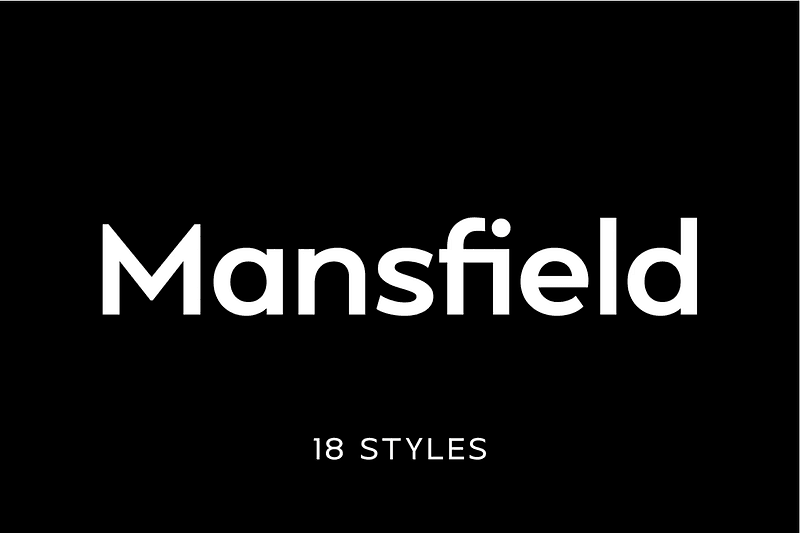
2. Neue Power
Neue Power is a contemporary sans serif display font family in 6 weights plus 12-degree of obliques. It supports 75+ Languages (Latin Based) followed by the Grotesk typefaces, perfect for various design needs,
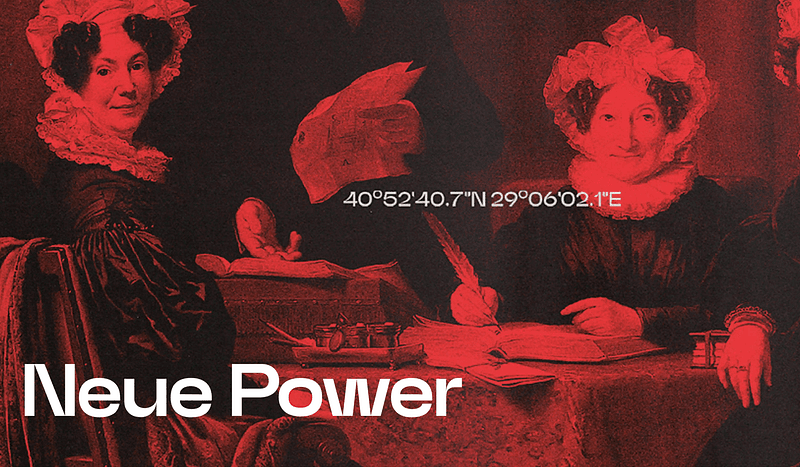
3. Madeleine Stories
Madeleine Stories Font is a beautifully crafted handwriting script typeface that embodies elegance, warmth, and versatility. With its flowing, hand-lettered strokes and refined details, this font feels both personal and polished, making it perfect for a wide range of creative projects.
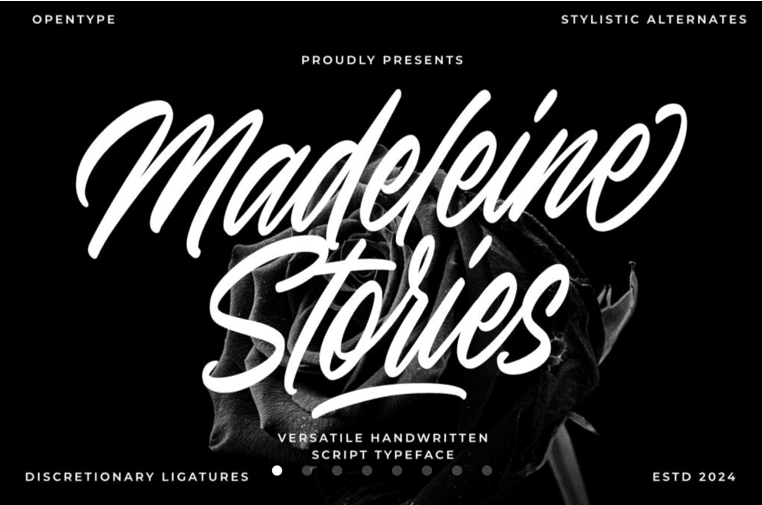
4. Eyes for Serifs
This font summarises examples of classic Humanistic fonts but with personal details and more playful. The goal is to deliver a font to a more legible tone, focused to editorial and printed uses but with an extra kick.
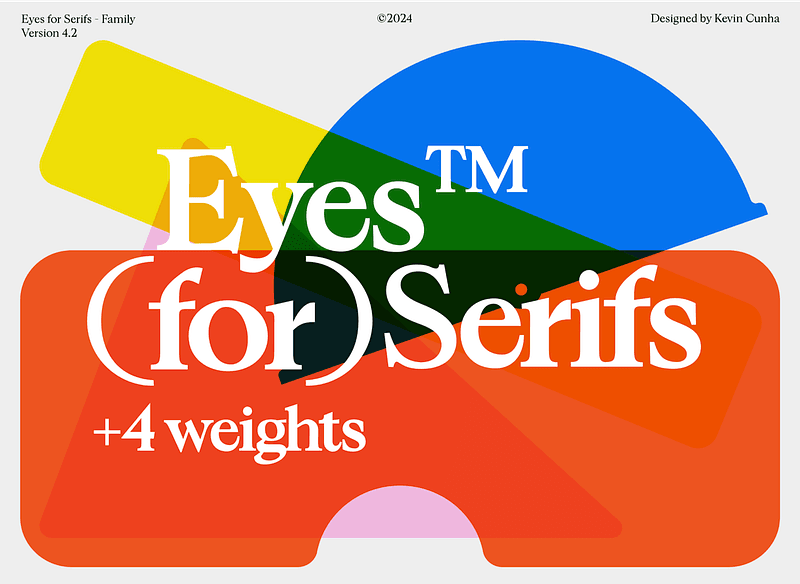
5. Regar Font
Regar is a modern and eye-catching display font designed for bold statements and visual impact. Its clean lines, distinct letterforms, and stylish aesthetics make it perfect for headlines, posters, branding, and editorial design. With a balance of elegance and readability, Regar stands out while maintaining clarity, making it versatile for both print and digital use. Ideal for projects needing a strong, contemporary vibe, Regar commands attention and leaves a memorable impression.
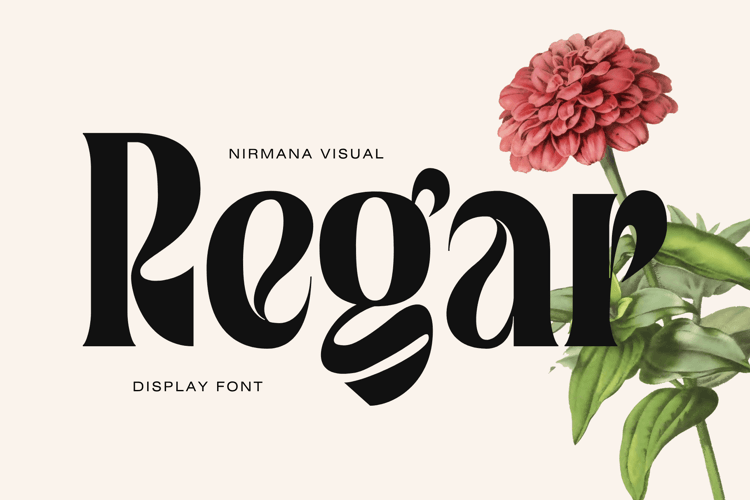
6. Nostalgic Remain Font Family
The Nostalgic Remain is a chic modern and timeless serif font that evokes a sense of nostalgia and old-world charm. Its elegant and refined letterforms are perfect for creating designs that require a touch of sophistication and tradition.
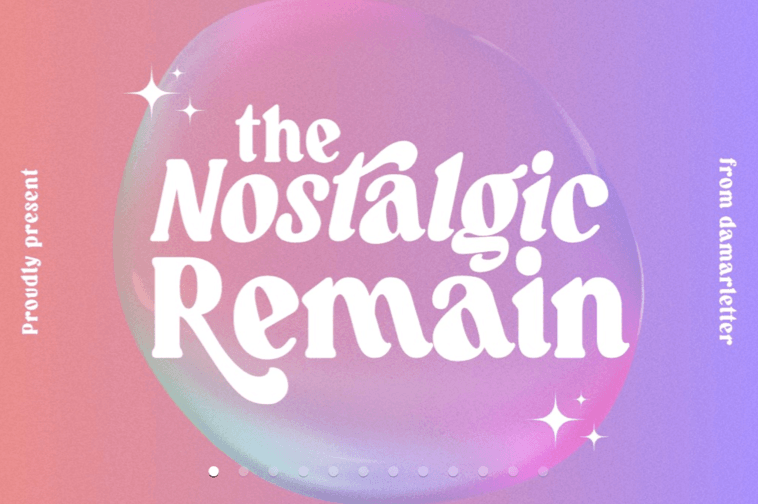
7. Better minds Font
Better minds is consisting of a fashionable handwritten-style script make looks elegant, and stylish.
This font was created to look as close to a natural handwritten script as possible by including 15 ligatures.
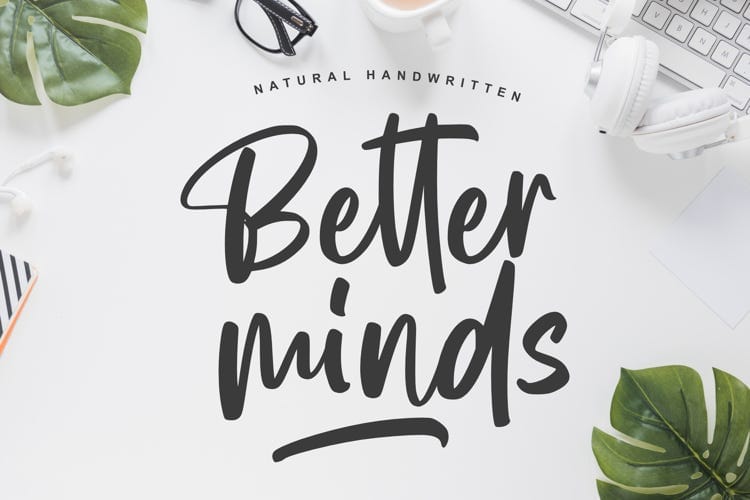
8. LT Serif — Modern Serif Font
LT Serif presents a modern, minimalist, and elegantly crafted serif font, featuring distinctive alternatives for select capital letters with stems. This versatile typeface is inclusive of uppercase, lowercase, symbols, alternates, numbers, and supports multilingual characters. LT Serif lends itself perfectly to projects demanding sophistication and contemporary flair, such as magazine headlines, book layouts, banners, posters, logos, and more
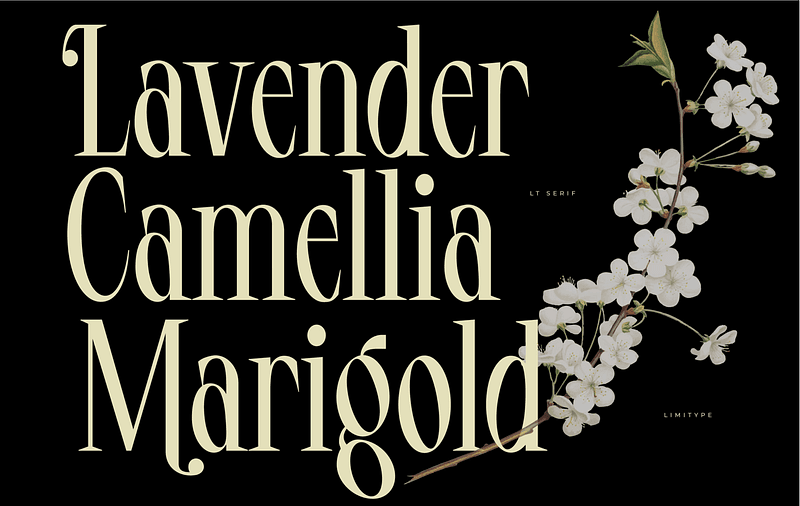
9. Galter Font
This font features a balanced proportion of stroke thickness and fineness, creating attractive and easy-to-read visuals. This modern serif style is often characterized by a bold distinction between thick and thin lines, providing a touch that is understated but still stands out.
10. Rightes South Font
a stylish handwritten font that combines elegance with a modern touch. With smooth curves and lively shapes, this font is perfect for designs that highlight beauty and personality. Its unique strokes give it a chic, contemporary look, making it a great choice for many design projects, whether it’s for eye catching logos, romantic wedding invitations, or branding that feels premium and sophisticated.
11. Funky Form — Geometric Isometric Font
an avant-garde typeface designed to bring a fresh twist to your creative projects. With its unique blend of display and geometric styles, this font stands out with its isometric flair and block-like characters that evoke a sense of playfulness while maintaining professional integrity. Perfectly suited for game-themed designs or any project requiring an eye-catching touch, “Funky Form — Geometric Font” offers versatility without compromising on style.